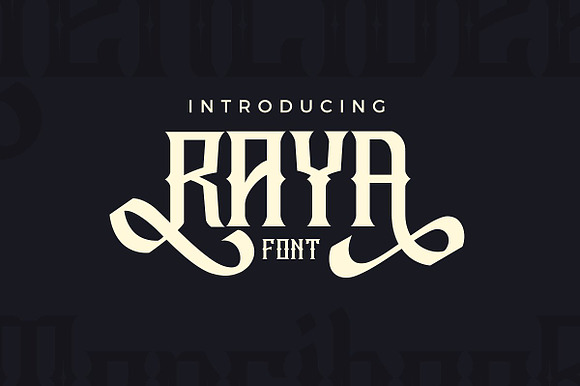
Raya Vintage Swash Font
A font that is inspired by vintage decorative letters or cards. With ornamental vintage style and lot of swashes you can create realistic headers. It works beautifully for personal branding and advertising.
Why Raya Vintage Swash Font is worth a look